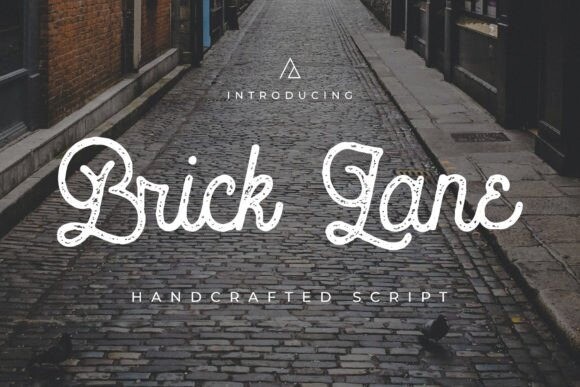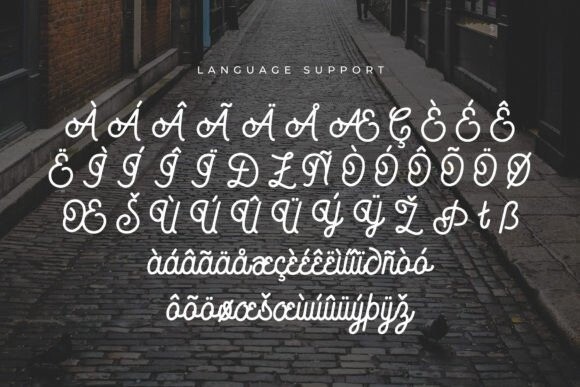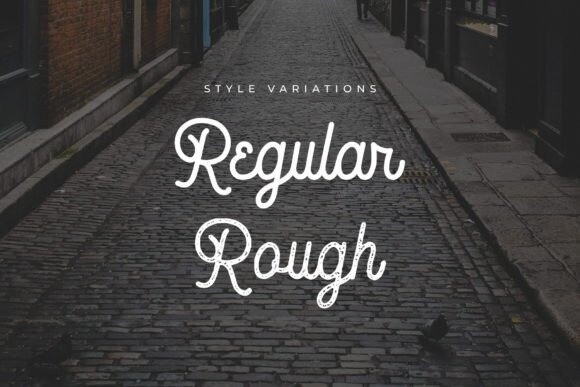
Brick Lane Font
Brick Lane Font is a new sans-serif script typeface with a handcrafted look and feels, perfect for trendy and urban-related projects but suitable for almost any application. This font features uppercase letters with decorative swirls and lowercase letters with simple letterforms that perfectly complement each other.